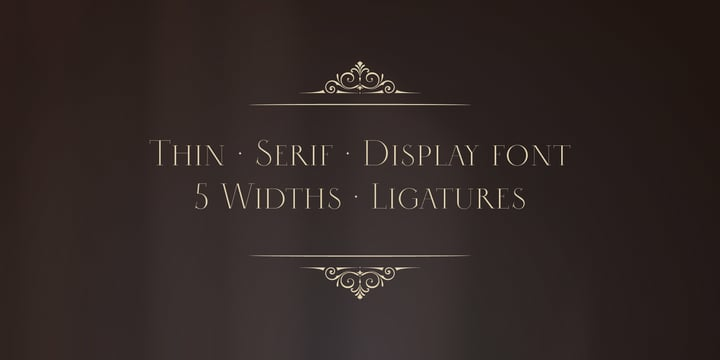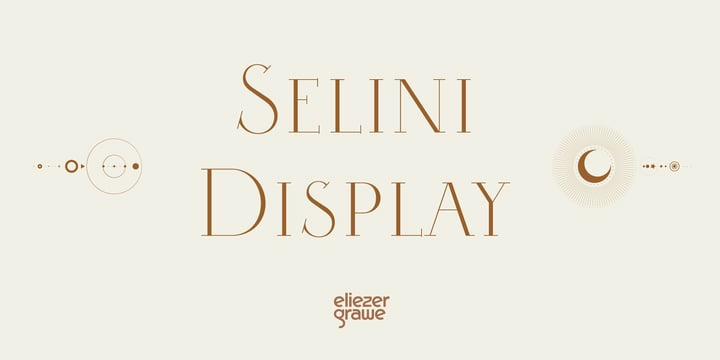
Selini Display Font Family
Selini Display Font FamilySelini Display is a font that incorporates the classic and the modern: “mathematical” curves, classic proportions, thin body, needle-like serifs. It brings the lightness and modernity present in the Didot style, with more classic and wide forms.
It is composed of capitals and small capitals, and an extensive set of ligatures, initial and
terminal swashes. It came in five widths: condensed, semi condensed, regular, semi expanded and expanded.
Selini Display is a thin, elegant and light font ideal, for luxury-related designs, traditional
events, fashion magazines and brands and any material that needs a delicate,
light and refined touch. Its use is recommended for large sizes and short
texts, such as titles, logos, banners and posters.